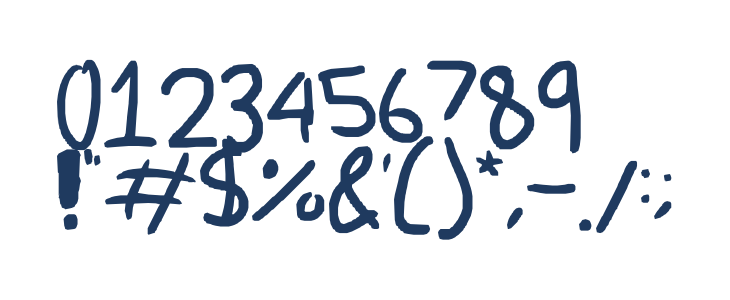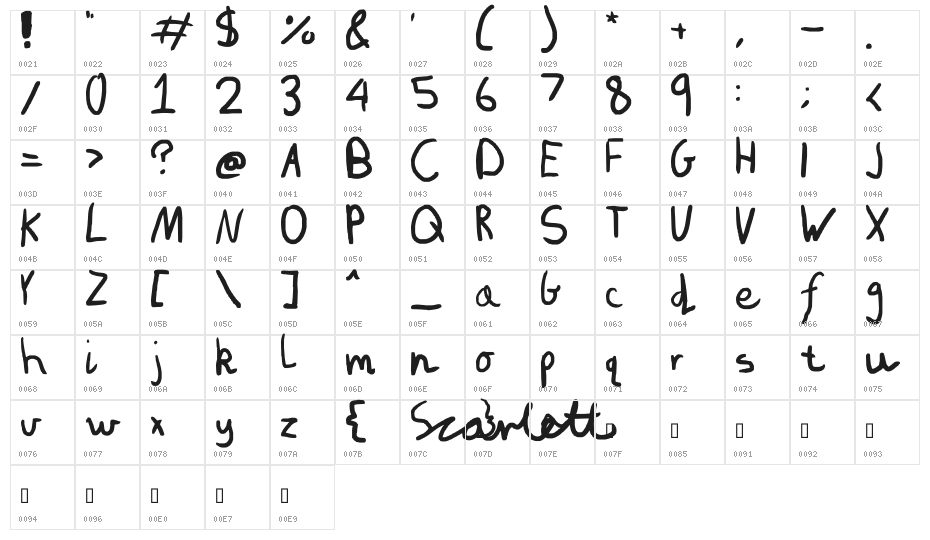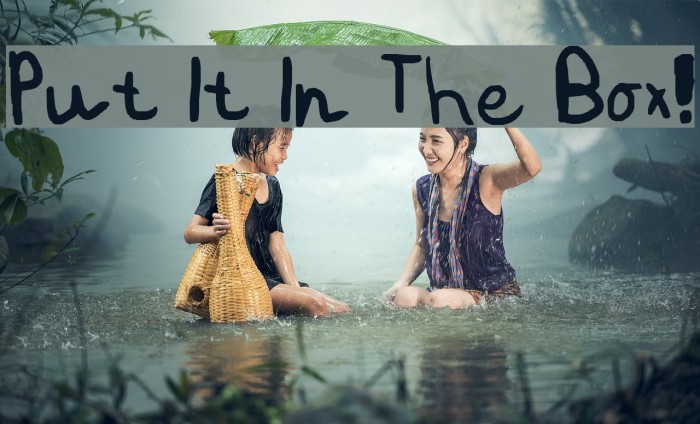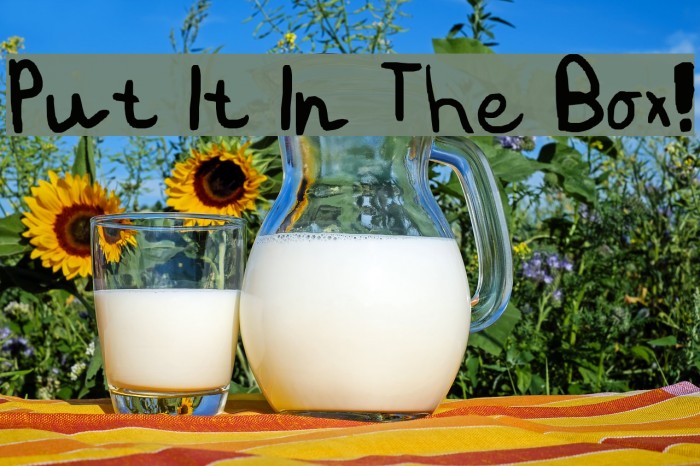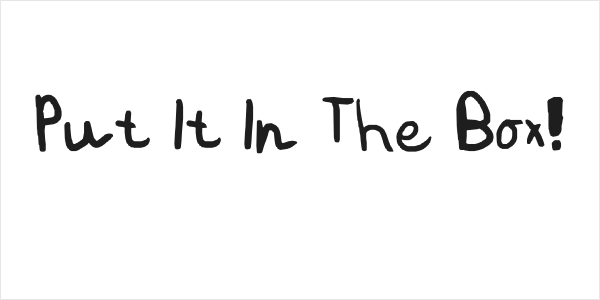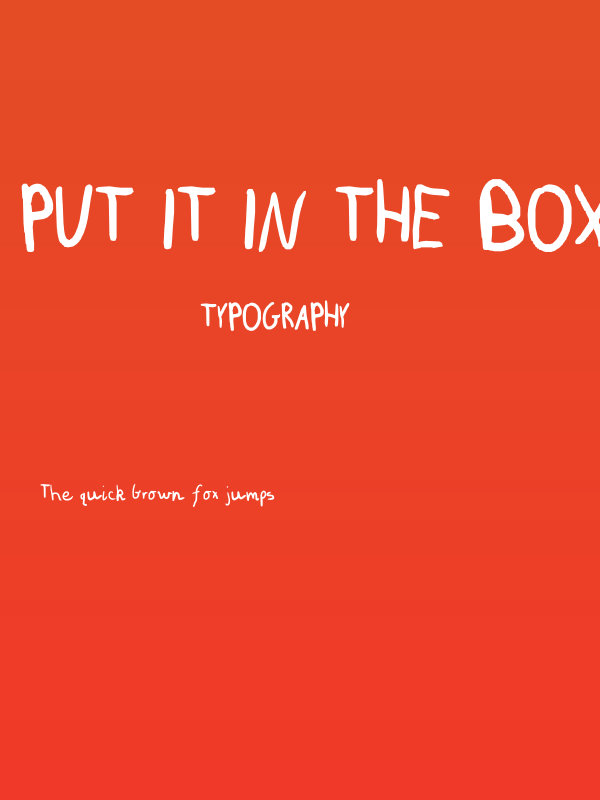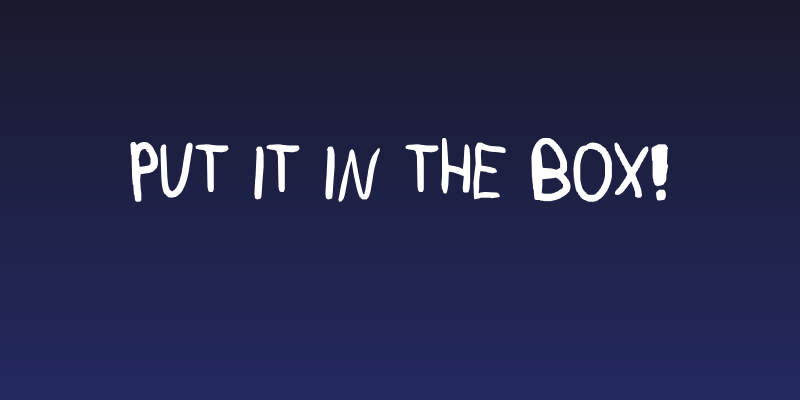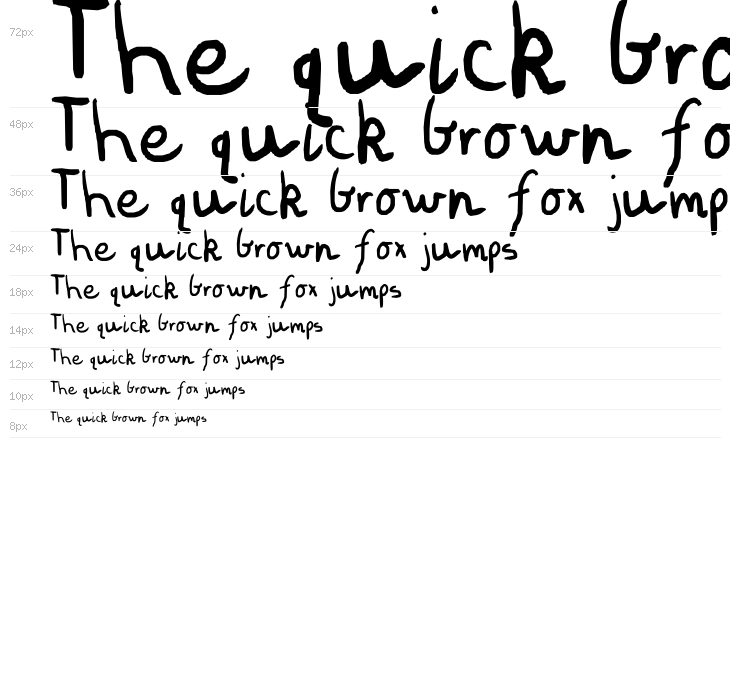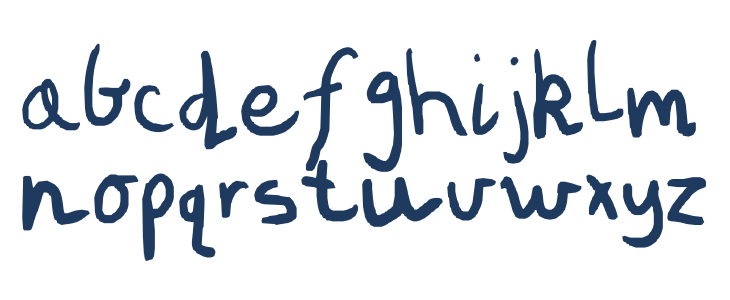
Put It In The Box! Font
Put It In The Box! Description
This font exudes a playful and casual handwritten style, characterized by its irregular strokes and organic flow. The letters are slightly uneven, giving it a personal and informal touch that mimics natural handwriting. The uppercase and lowercase letters maintain a consistent style, with rounded edges and a slight slant, enhancing its approachable and friendly appearance. The numerals and special characters follow the same aesthetic, ensuring uniformity across all glyphs. This font is ideal for projects that require a human touch, such as personal invitations, greeting cards, or any design that aims to convey warmth and authenticity.
PUT-IT-IN-THE-BOX UPPERCASE
PUT-IT-IN-THE-BOX LOWERCASE
PUT-IT-IN-THE-BOX OTHER CHARS
| Use Case | Headlines, Informal text, Personal projects |
| Proposed Projects | Perfect for greeting cards, personal invitations, children's books, and casual branding. |